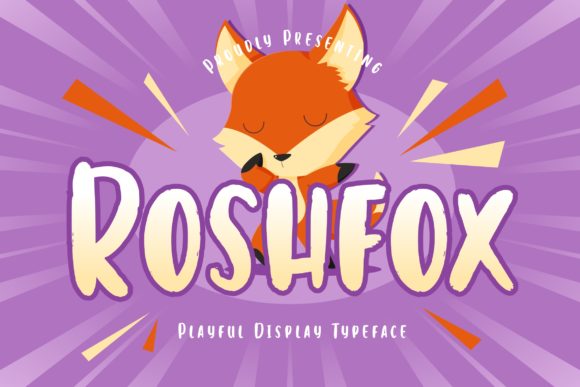
Roshfox: A Playful Display Font for Engaging Designs
Roshfox, a playful and friendly display font, is the perfect choice for any child-related project. Its unique style and charm make it an ideal addition to your design toolkit, whether you're creating social media graphics, website banners, or digital ads.
Enhancing Social Media Graphics with Roshfox
When it comes to creating scroll-stopping visuals on platforms like Instagram, Pinterest, and Facebook, Roshfox stands out. This playful display font can add a touch of whimsy and friendliness to your posts, making them more engaging and memorable. Use Roshfox for eye-catching headlines, callouts, and short text to draw in your audience and make your content stand out.
Roshfox for YouTube Thumbnails and Reels Covers
For video content creators, Roshfox can be a game-changer. Incorporate this font into your YouTube thumbnails and Instagram Reels covers to create a visually appealing and cohesive look. The playful and friendly nature of Roshfox makes it perfect for titles and short descriptions, helping to grab viewers' attention and increase click-through rates.
Boosting Email Campaigns with Roshfox
Email headers and newsletters can benefit greatly from the use of Roshfox. This font's playful and inviting style can make your email campaigns more engaging and personable. Use Roshfox for subject lines, headings, and key highlights to create a more impactful and reader-friendly experience.
Roshfox for Product Launches and Seasonal Promotions
When launching a new product or running a seasonal promotion, the visual appeal of your marketing materials is crucial. Roshfox can help you create standout designs that capture the essence of your campaign. Whether it's a sale announcement, a product teaser, or an inspirational quote graphic, Roshfox adds a playful and friendly touch that resonates with your audience.
Creating Memorable Brand Content with Roshfox
Brand consistency is key in building a strong and recognizable identity. Roshfox can help you achieve this by adding a consistent and distinctive visual element to your brand content. Use Roshfox for logo marks, decorative accents, and other branding elements to create a cohesive and memorable brand presence across all your digital platforms.
Roshfox for Web Banners and Landing Pages
Web banners and landing pages are often the first point of contact with potential customers. Using Roshfox in these areas can help you create a welcoming and engaging environment. This playful and friendly display font is perfect for headlines, call-to-action buttons, and short text, making your web content more appealing and user-friendly.
Readability and Practical Font Pairing with Roshfox
While Roshfox is highly effective for headlines and short text, it's important to consider readability, especially on mobile screens and in fast-scrolling social feeds. For longer text or body copy, pair Roshfox with a clean sans serif font. This combination ensures that your content remains both visually appealing and easy to read. For a more editorial look, you can also pair Roshfox with a classic serif font.
Using Roshfox for Creative Templates and Design Assets
Design templates and assets are essential for maintaining a consistent and professional look across all your marketing materials. Roshfox can be a valuable addition to your design library, providing a playful and friendly touch to your templates. Use Roshfox for titles, headings, and decorative elements to create versatile and eye-catching design assets.
In conclusion, Roshfox is a versatile and charming display font that can significantly enhance your marketing and design efforts. Whether you're creating social media graphics, email campaigns, or web banners, Roshfox adds a playful and friendly touch that can make your designs truly standout. Embrace the creativity and versatility of Roshfox to elevate your brand and engage your audience effectively.